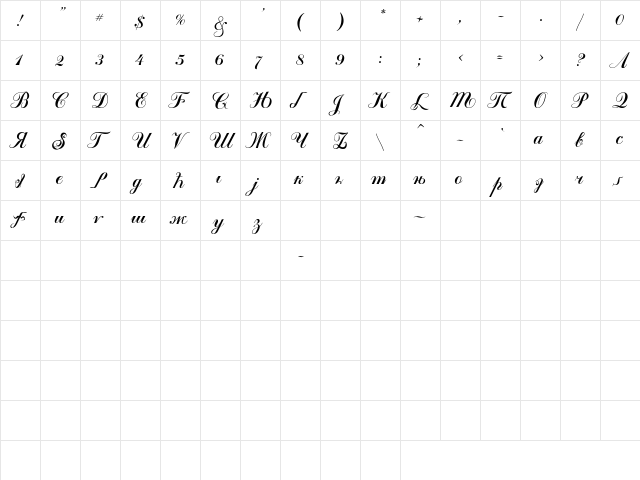
Kremlin Tsaritsa Italic
Design Context for Kremlin Tsaritsa Typeface
Kremlin Tsaritsa is a composed and adaptable typeface that performs quietly and consistently across a wide range of design contexts. The dynamic lean of this cut emphasises speed and emphasis in any layout.
Pro Tip: Try Kremlin Tsaritsa for annotation and caption copy alongside an upright companion — the contrast in angle creates a dynamic but ordered typographic system.